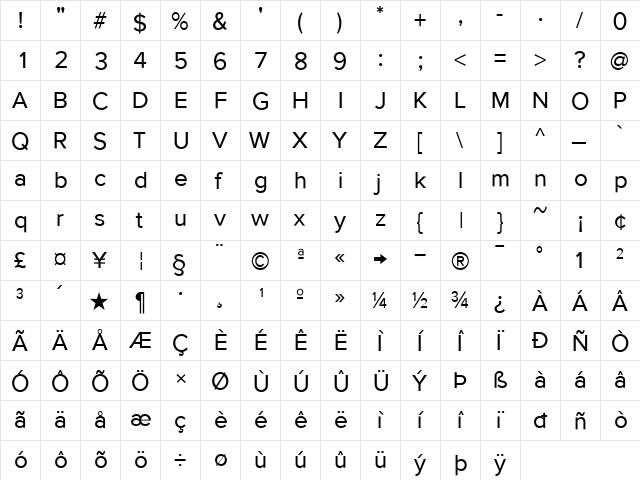
ProximaSansRegular Regular
ProximaSansRegular is a composed and adaptable typeface that performs quietly and consistently across a wide range of design contexts.